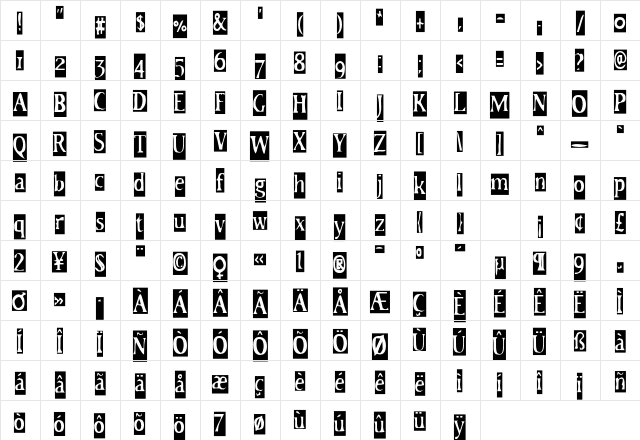
HateNote Extortionate Free Font
HateNote Extortionate
Style: Extortionate
HateNote Family
HateNote Extortionate
Complete HateNote Extortionate glyph index. Displaying only characters natively supported by HateNote Extortionate font.
Design Context for HateNote
HateNote is a composed and adaptable typeface that performs quietly and consistently across a wide range of design contexts.